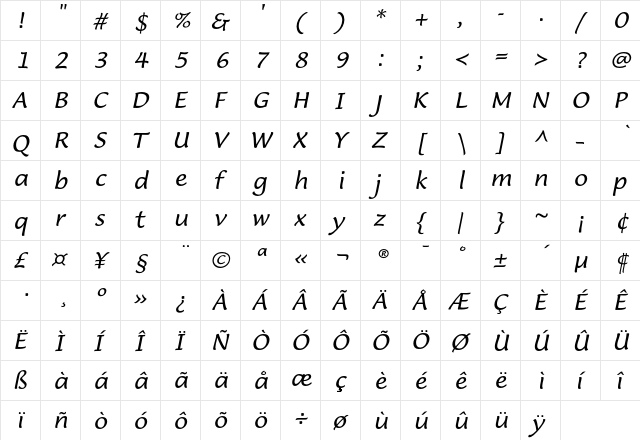
LucidaCasualEF Italic
Design Context for LucidaCasualEF Typeface
LucidaCasualEF takes a measured approach to typography — its balanced proportions and neutral character make it a reliable workhorse for both digital and print work. The dynamic lean of this cut emphasises speed and emphasis in any layout.
Pro Tip: Use LucidaCasualEF for emphasis, pull quotes, and subheadings where its slanted energy can add rhythm to the layout.